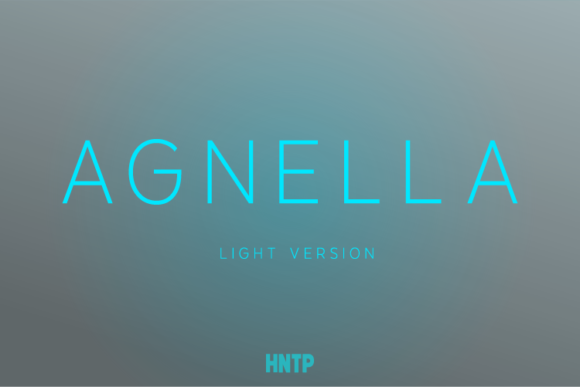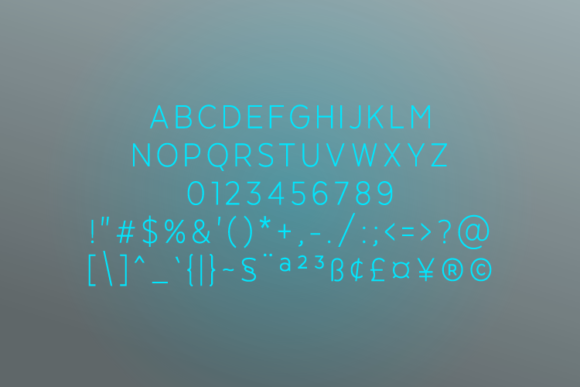
Agnella Light Font
About Agnella Light Font
Agnella is an effective sans serif with a touch of subtle elegance. Agnella’s vertically and horizontally cut stems make it appear strong and steady.